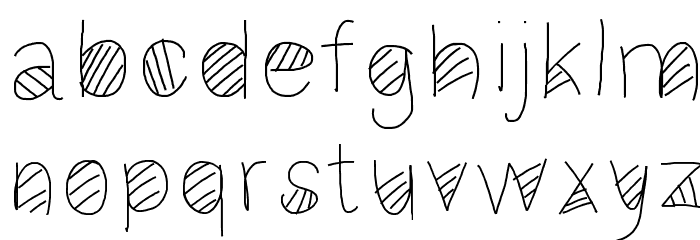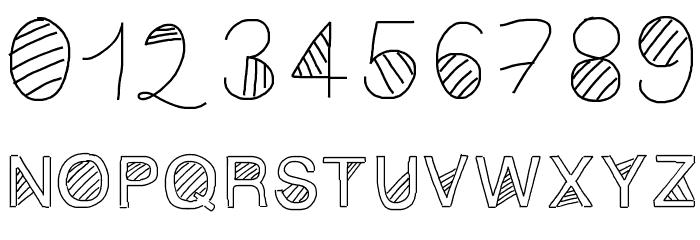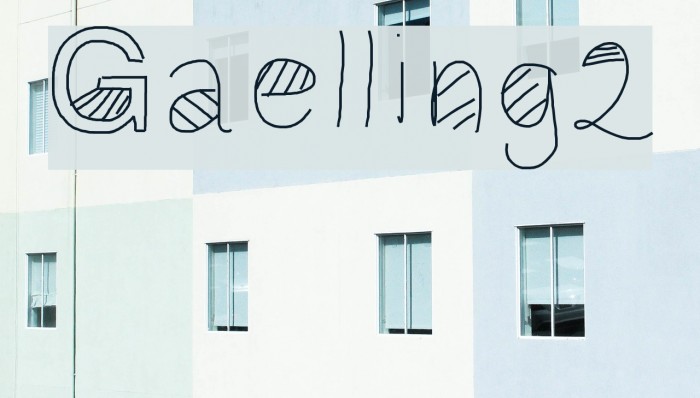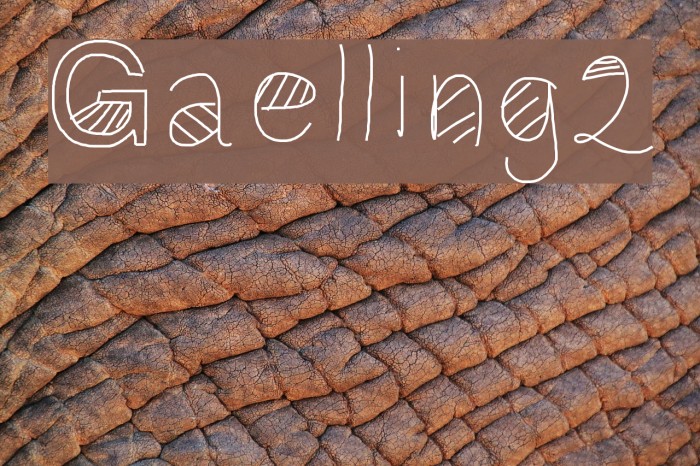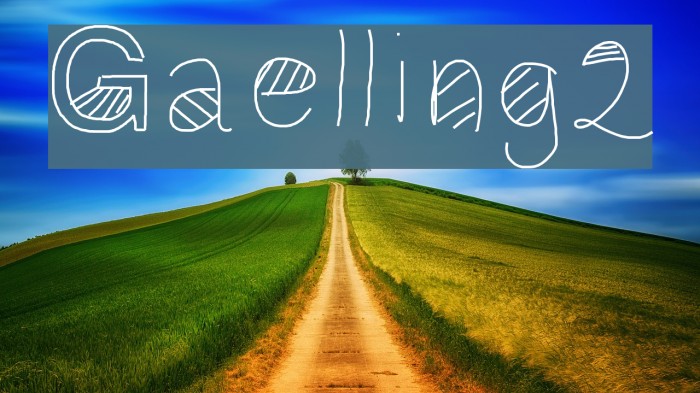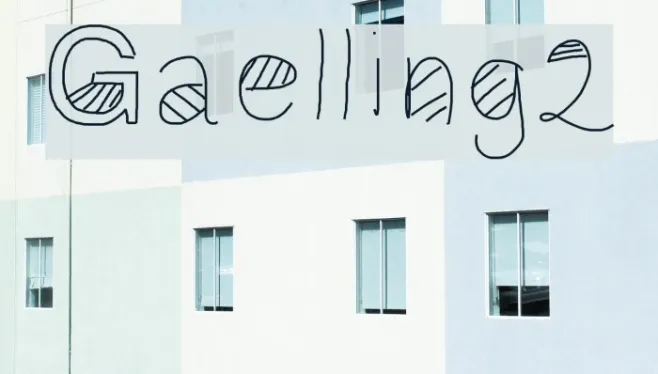
Gaelling2 Font
This font features a playful and creative design, combining elements of both geometric and hand-drawn styles. The uppercase letters are characterized by bold, outlined forms with diagonal lines filling the interior spaces, giving them a dynamic and textured appearance. The lowercase letters maintain a more fluid, handwritten look, with smooth curves and a casual feel. Numbers follow the same playful style, with a mix of solid and outlined forms. Special characters are designed to complement the overall aesthetic, adding a whimsical touch. The font's unique blend of structured and freeform elements makes it stand out, offering a distinctive visual appeal.
A playful, geometric, and hand-drawn font with bold outlines and textured interiors.
- Proposed Projects: Ideal for children's books, creative posters, playful branding, and artistic projects.
- Overall Style: Playful, Artistic